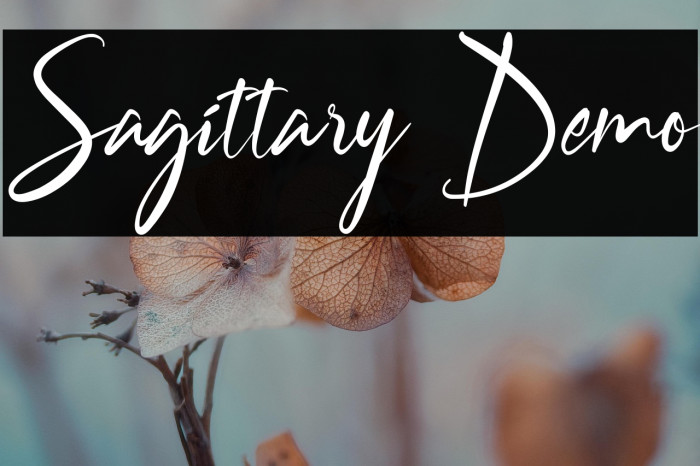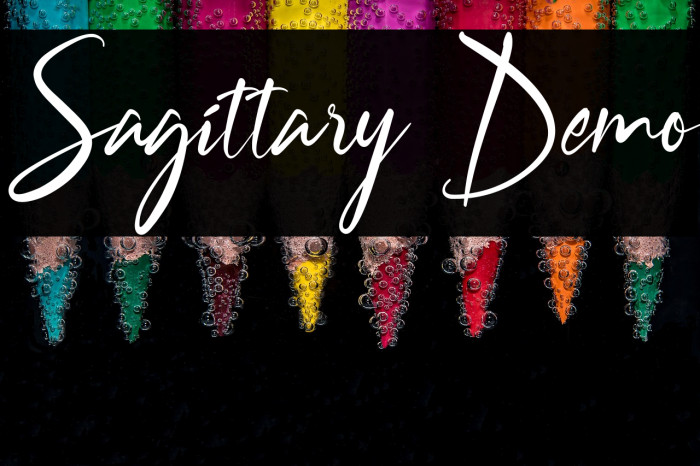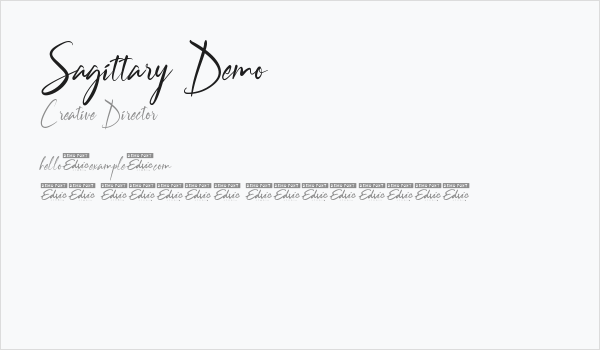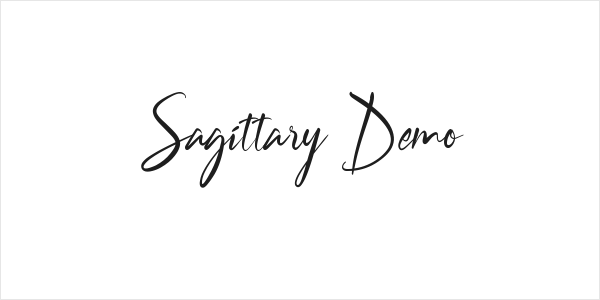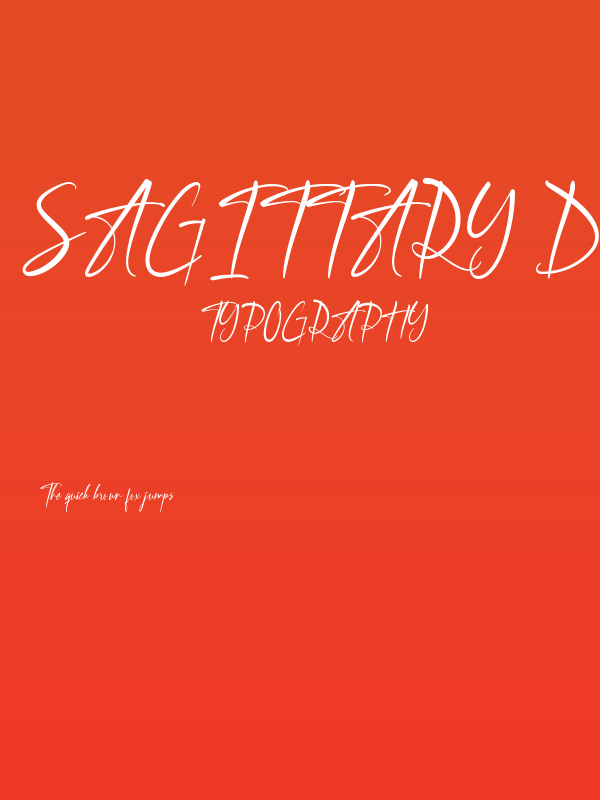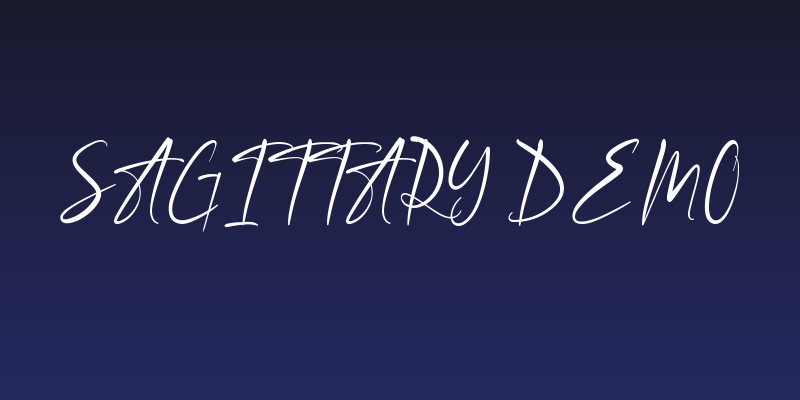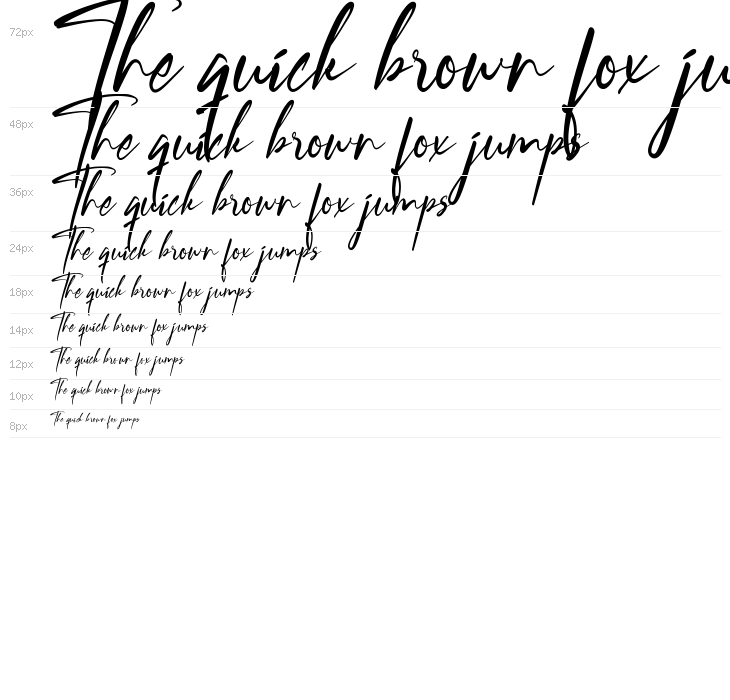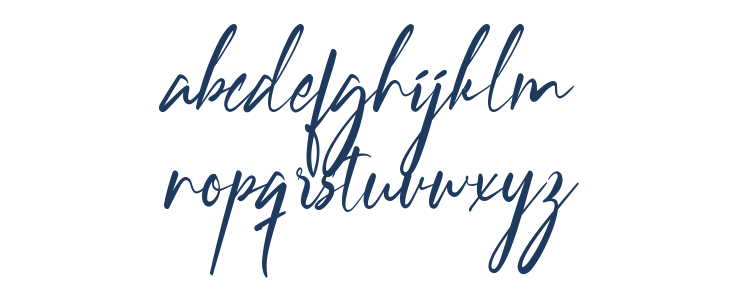
Sagittary Demo Font
Sagittary Demo Description
This font features a dynamic and expressive handwritten style, characterized by its fluid and cursive strokes. The uppercase letters are tall and slender, with a slight slant that adds a sense of motion and elegance. The lowercase letters maintain a consistent flow, with some letters extending below the baseline, enhancing the font's organic feel. The overall appearance is both artistic and modern, making it suitable for creative projects. The font's unique style is complemented by its varying stroke thickness, which adds depth and visual interest. The special characters retain the same handwritten charm, ensuring consistency across all elements.
| Proposed Projects | Ideal for invitations, greeting cards, branding, and artistic projects requiring a personal touch. |